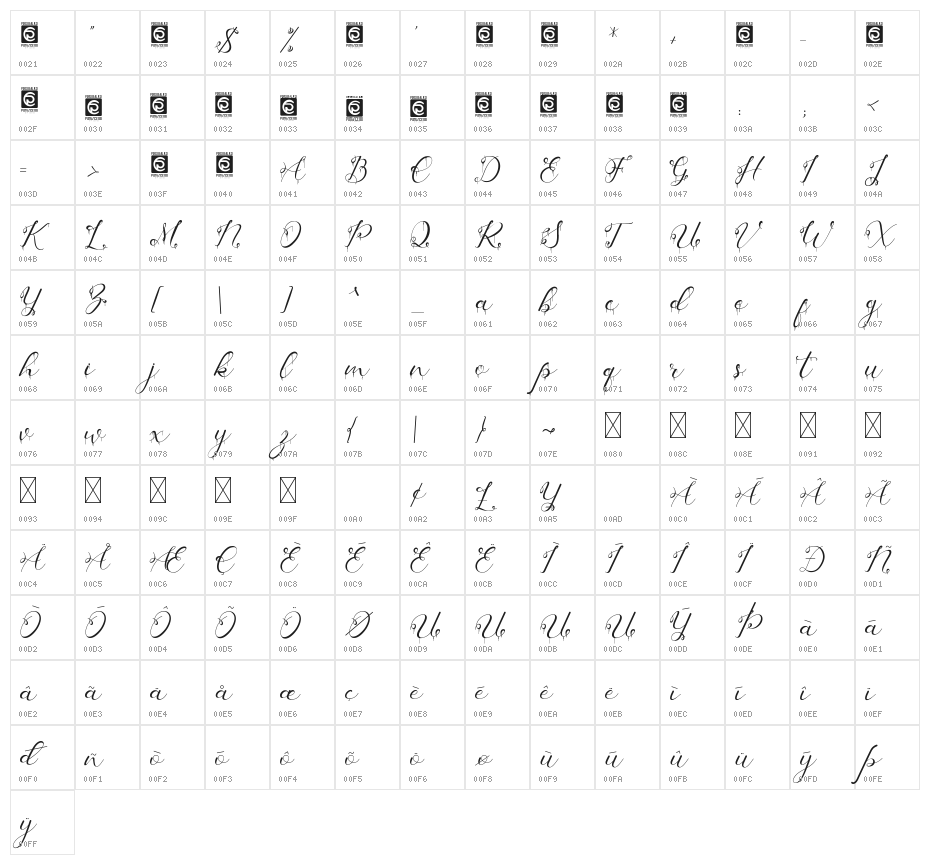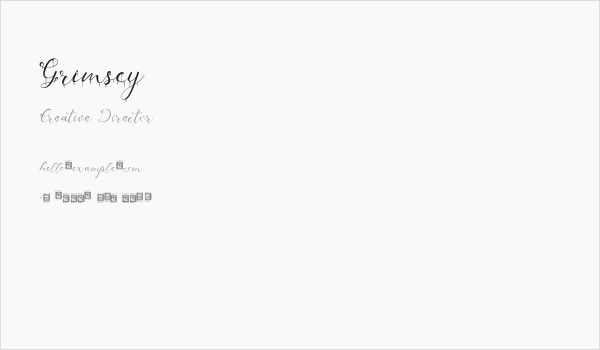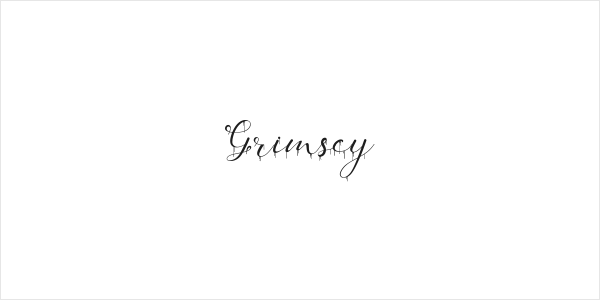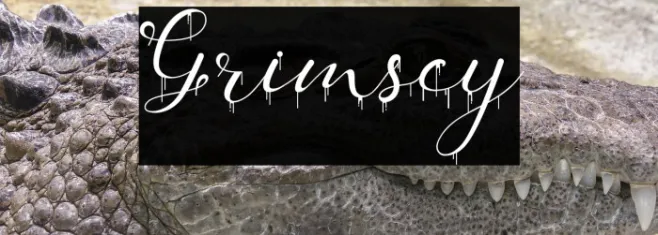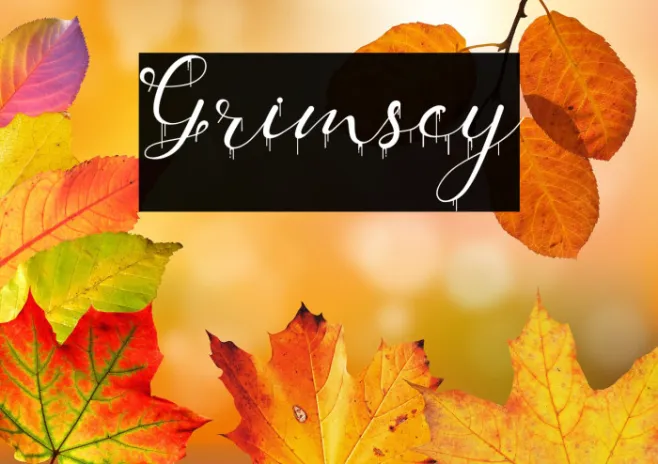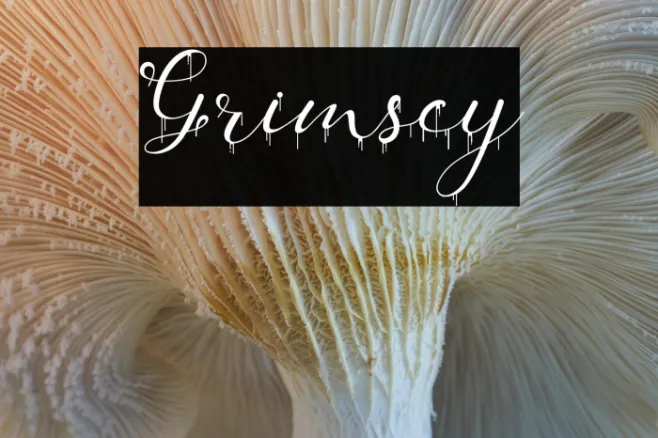
Grimscy Font
Grimscy Description
This font features an elegant and intricate script style, characterized by flowing, interconnected letters with decorative swashes and flourishes. The uppercase letters are particularly ornate, with loops and curls that add a sense of sophistication and artistry. The lowercase letters maintain a consistent flow, enhancing readability while preserving the decorative nature. The numerals and special characters are designed to match the overall aesthetic, making them suitable for creative and artistic projects. The font's unique style is reminiscent of calligraphic handwriting, offering a touch of elegance and charm.
| Proposed Projects | Ideal for wedding invitations, elegant branding, artistic posters, and decorative signage. |